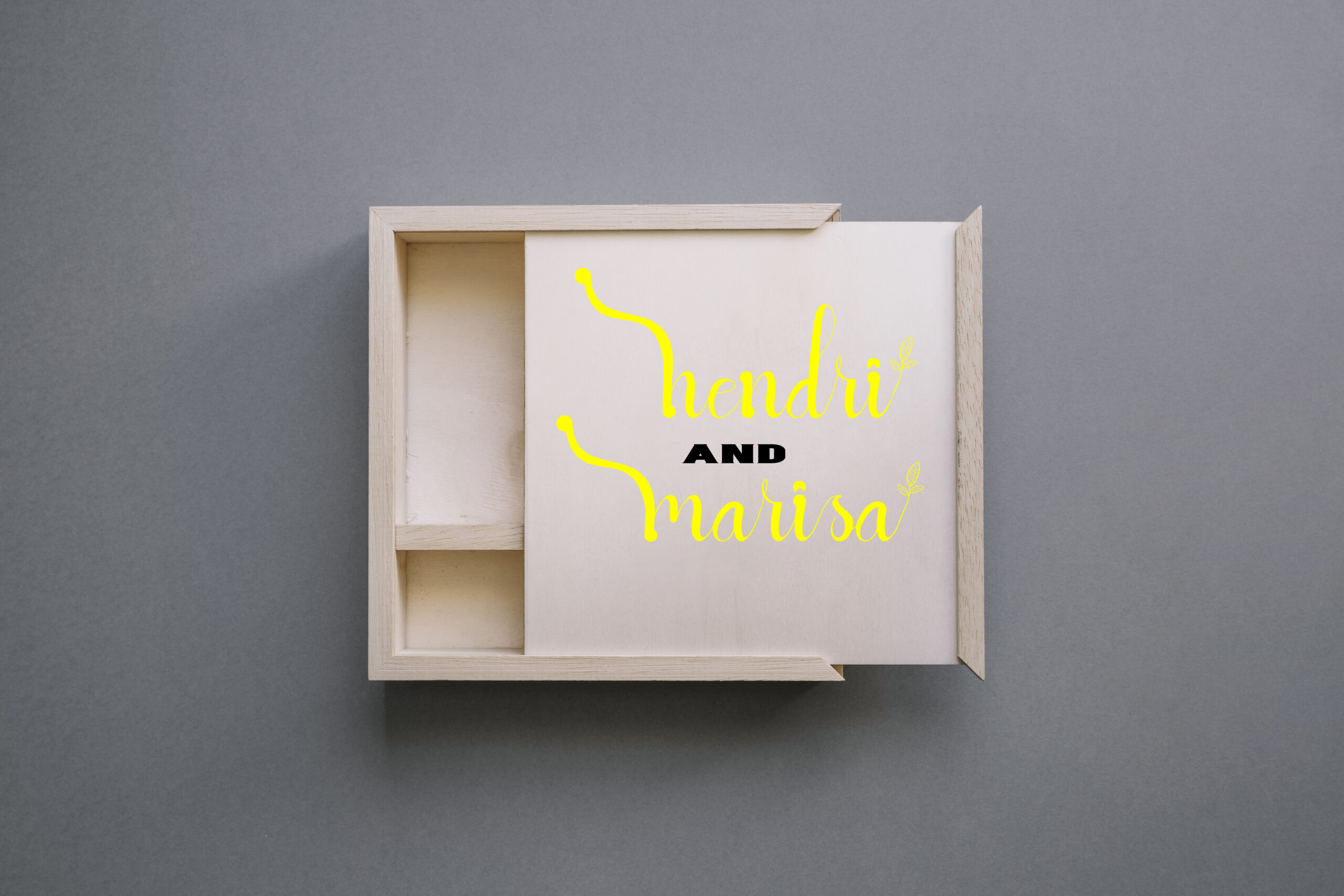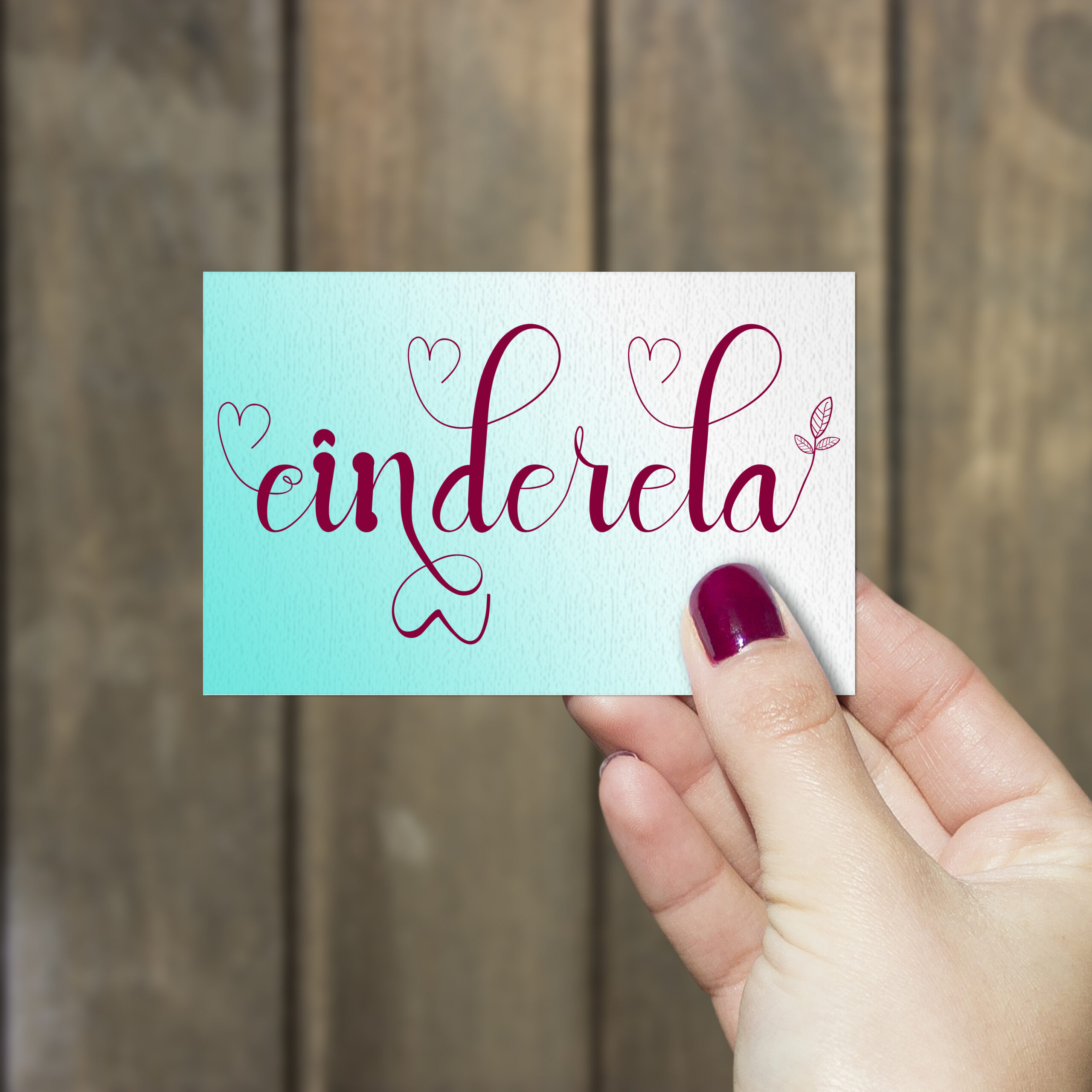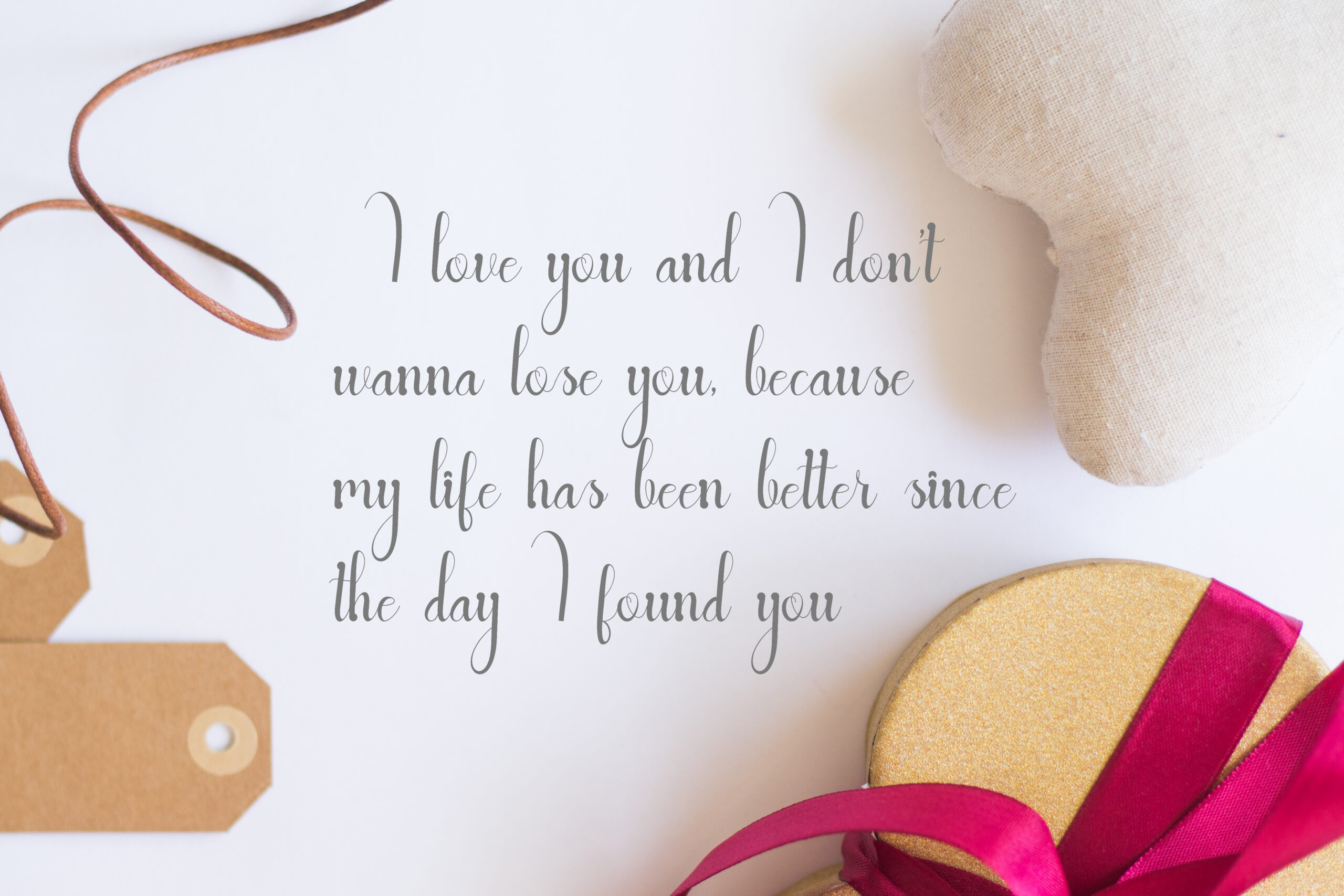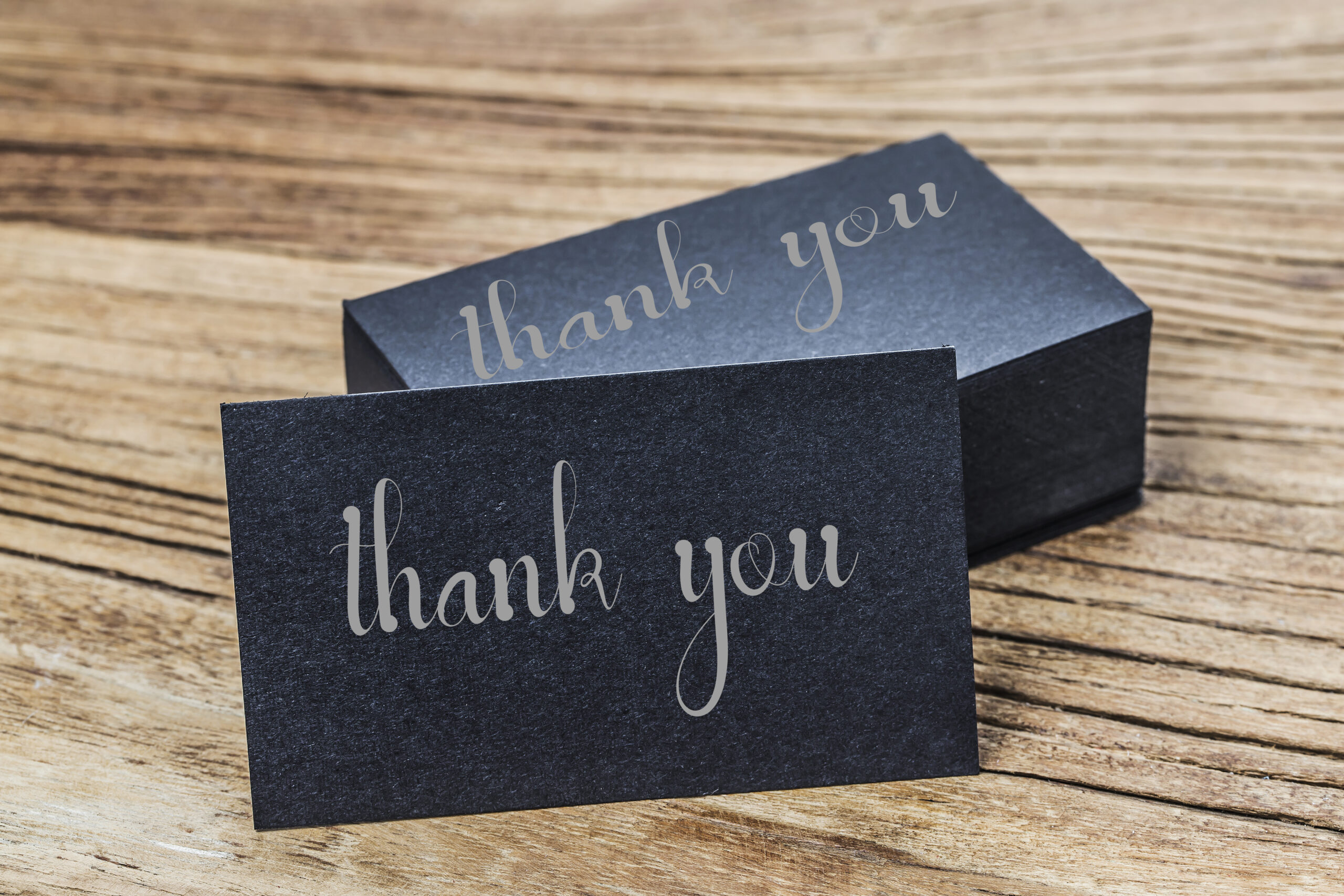
Cinderela Font
About Cinderela Font
Cinderela is a cutesy and charming script font, perfect for romantic designs. This font comes in a clean style that can be enhanced with extra glyphs for a fully customized and elegant script typeface.